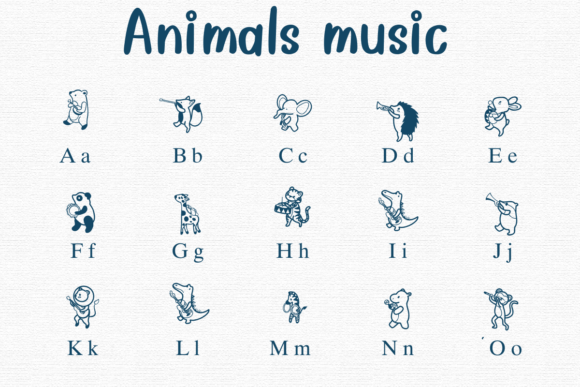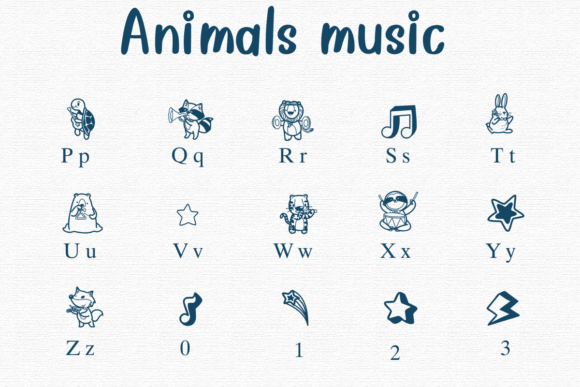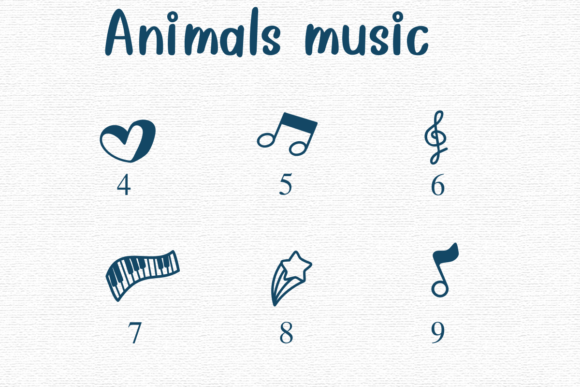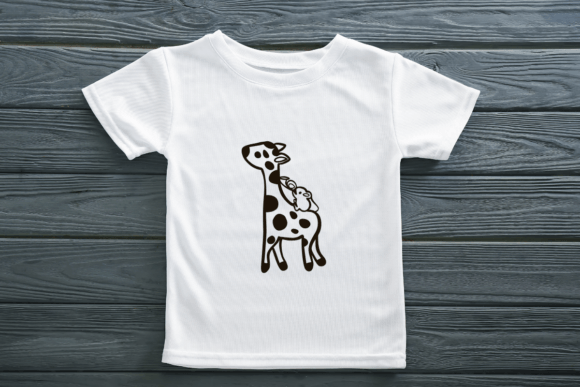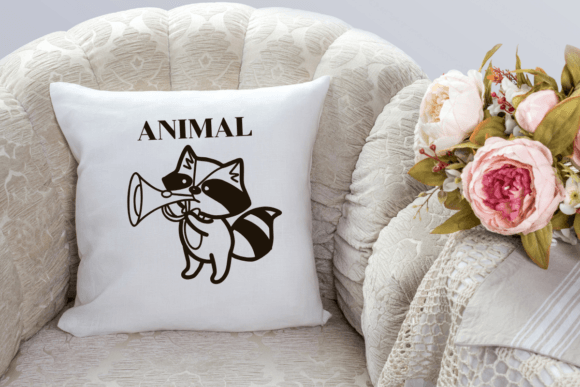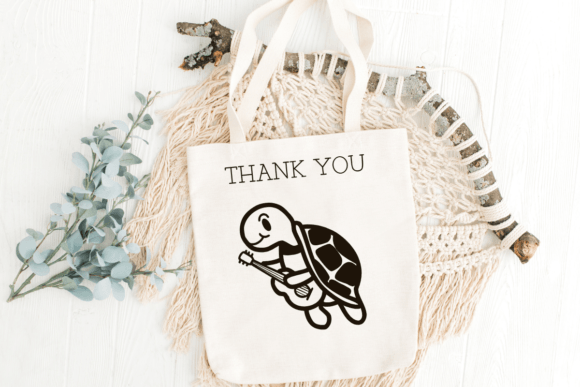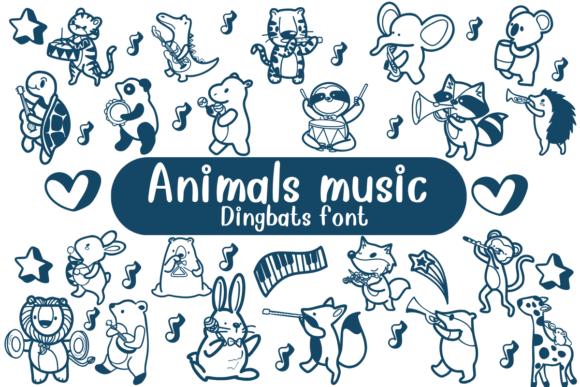
The Ultimate Playful Font: Animals Music Font
Have you ever been in the middle of a design project, and suddenly, you just can’t seem to find the right font? I recall a particularly frustrating moment when I was working on a children’s book project. My client wanted a fun, playful font that would bring the story to life, but everything I tried seemed either too boring or too over-the-top. That’s when I stumbled upon the Animals Music Font, and it completely transformed my design. In this article, I’ll share my experience with this delightful dingbat font and explore its features, uses, and some helpful tips.
- ✨ Each character features cute animals playing different musical instruments, adding a playful touch to any design.
- ✅ Perfect for invitations, posters, children’s books, and other creative projects that need a fun vibe.
While Animals Music Font is an amazing addition to any design project, there are a few things to keep in mind:
- ⚠️ As a dingbat font, it relies heavily on glyphs and special characters, which might require some extra effort to learn and use.
- 🤔 Some characters might not work well at smaller font sizes, so it’s best to use it at larger sizes (24pt or bigger) for optimal results.
The Animals Music Font was designed with the intention of bringing joy and playfulness to creative projects. The designer, inspired by their love of music and animals, wanted to create a font that would allow users to add a fun and whimsical touch to their designs. The result is a unique and engaging font that’s perfect for designers, crafters, and creative hobbyists.
A: Animals Music Font is perfect for projects that require a playful and fun vibe, such as invitations, posters, children’s books, and other creative designs.